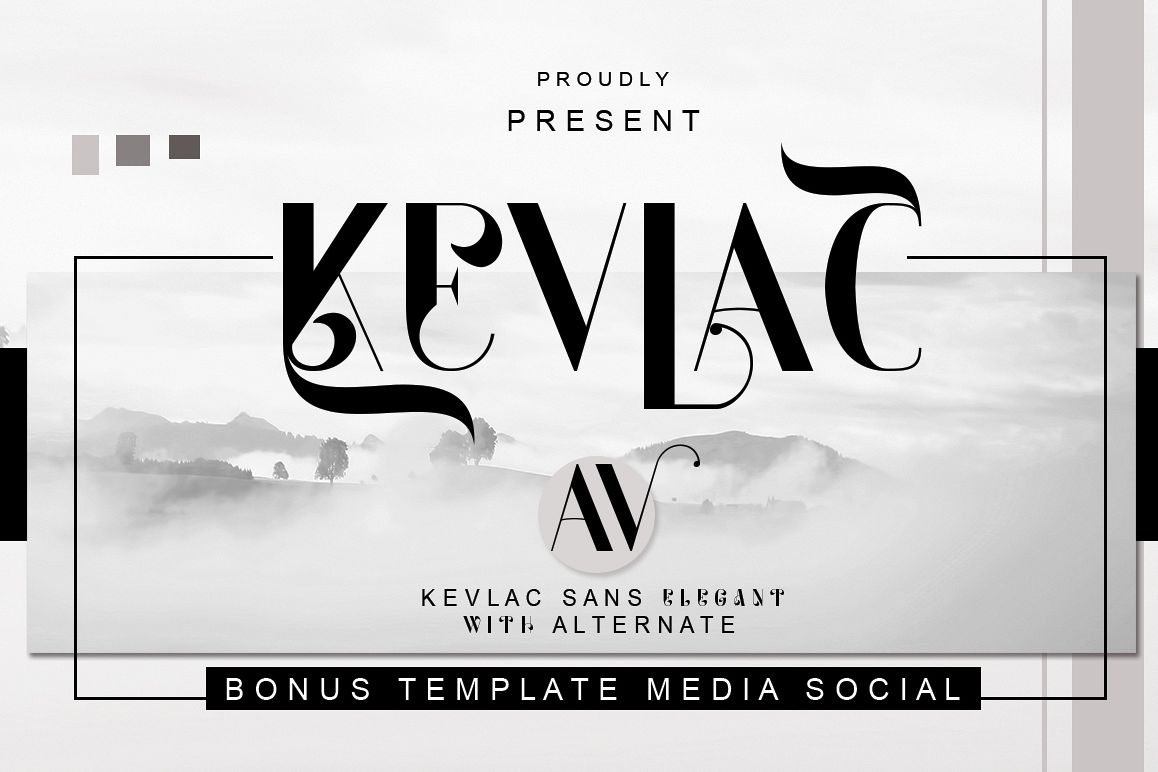
Kevlac
kevlac is an elegant sans serif font type
all of that is very suitable separately to add the impression of luxury and the impression of expensive to each of your designs